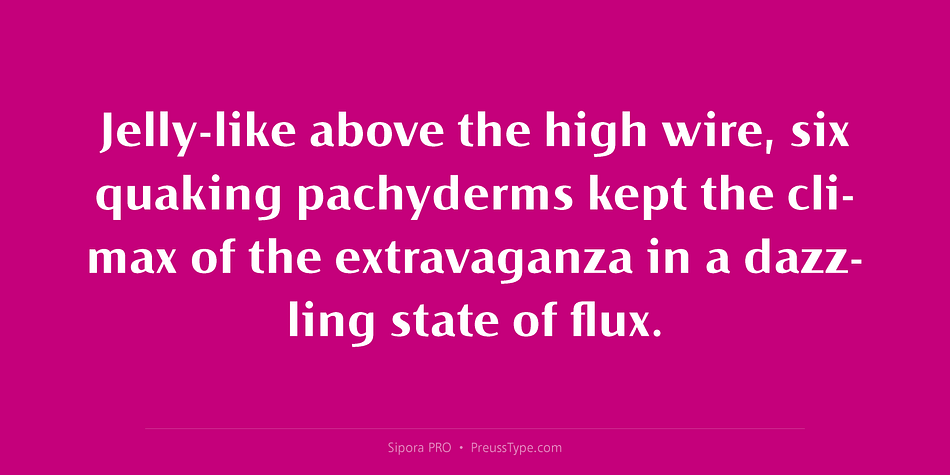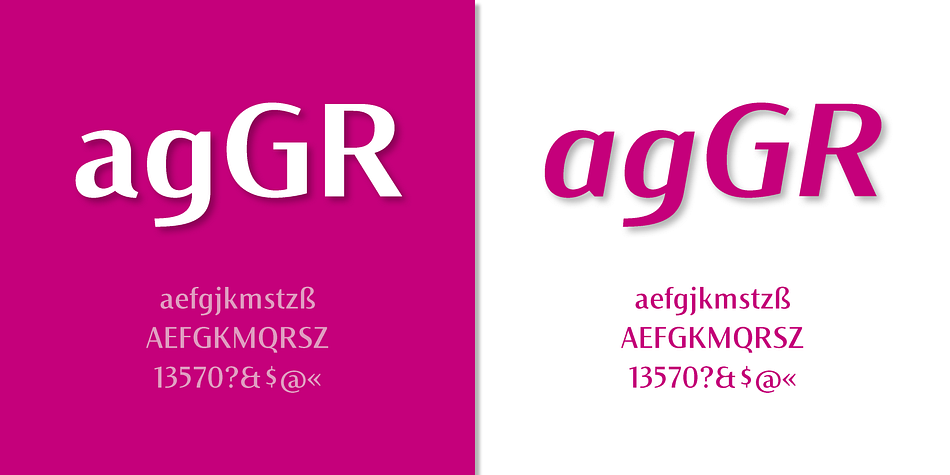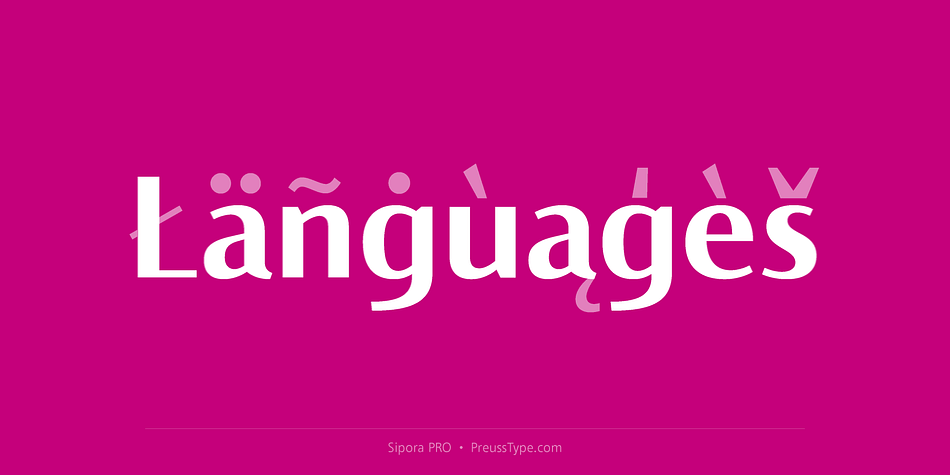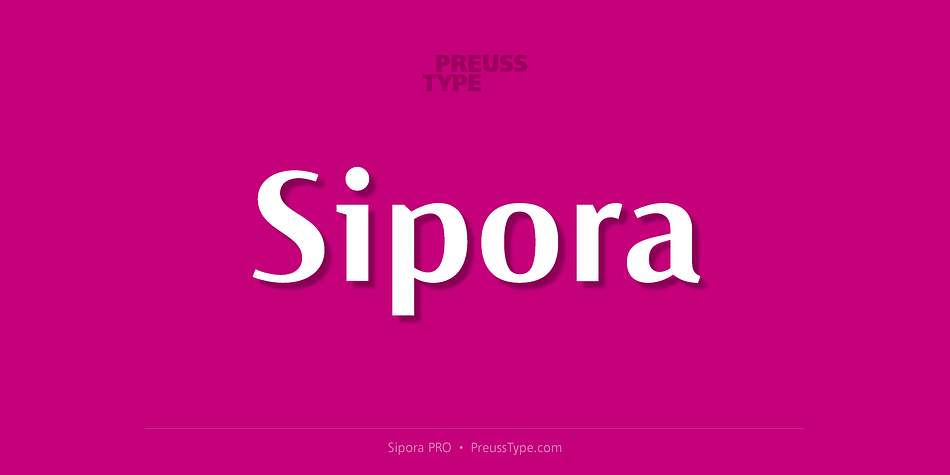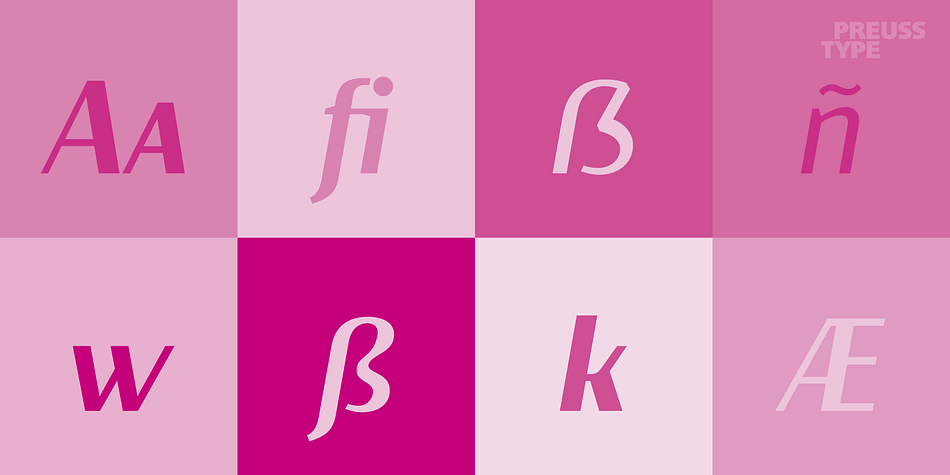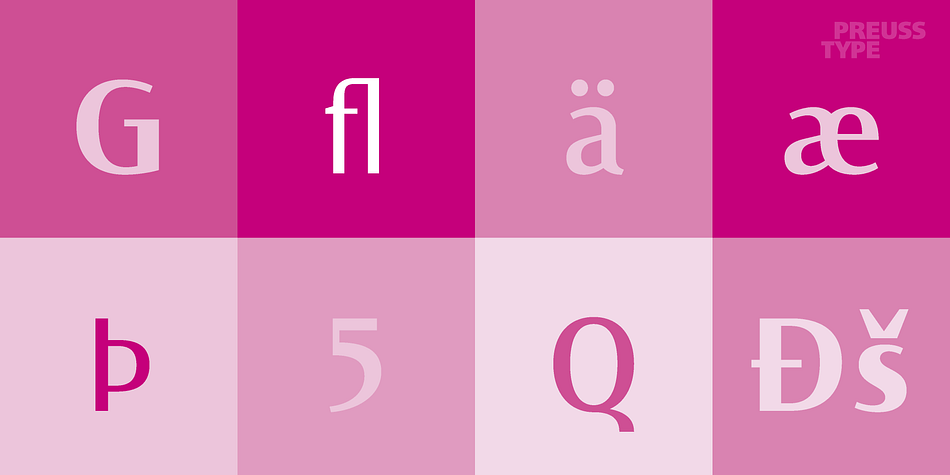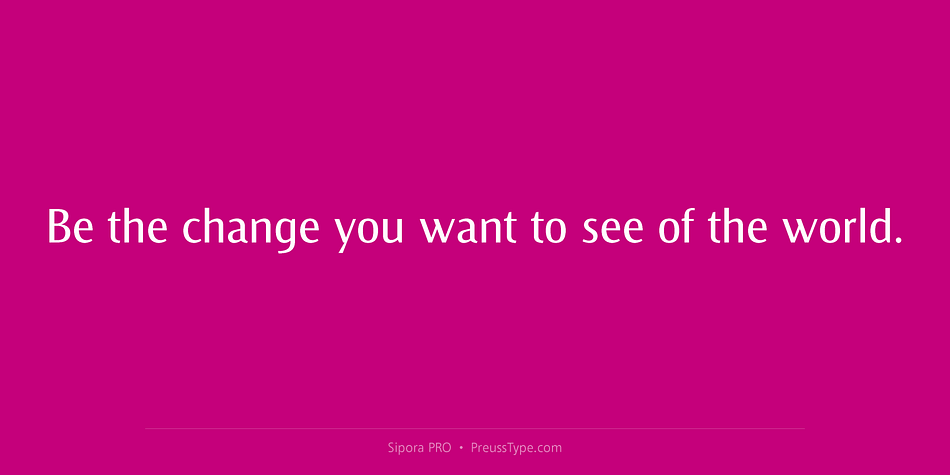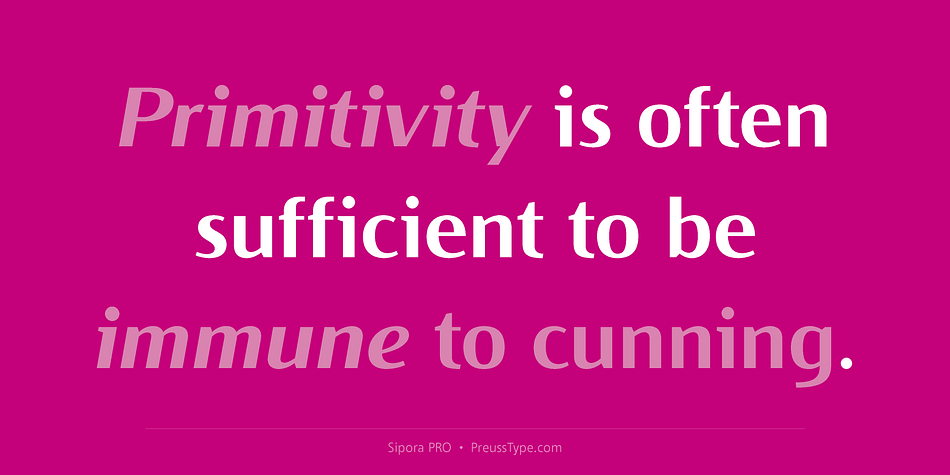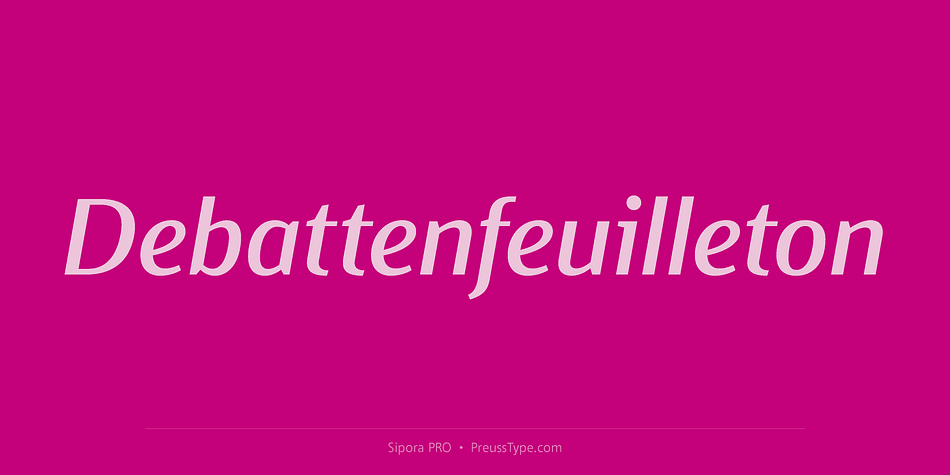
Designed by Ingo Preuss, Sipora PRO is a sans serif font family. This typeface has twelve styles and was published by preussTYPE.
This sans serif type family of six weights plus matching italics was designed by Ingo Preuss in 2016.
At text size, Sipora Family is a classic grotesque, distinguished by its semi-condensed proportionsespecially in the capitals, which harmonize well with the lining figures and an exceptional clarity in certain high-resolution media, such as offset printing, achieved by micro-detailing.
At display size, the detailing provides the otherwise austere forms of the neo-grotesque with a subtle wealth of visual interest.